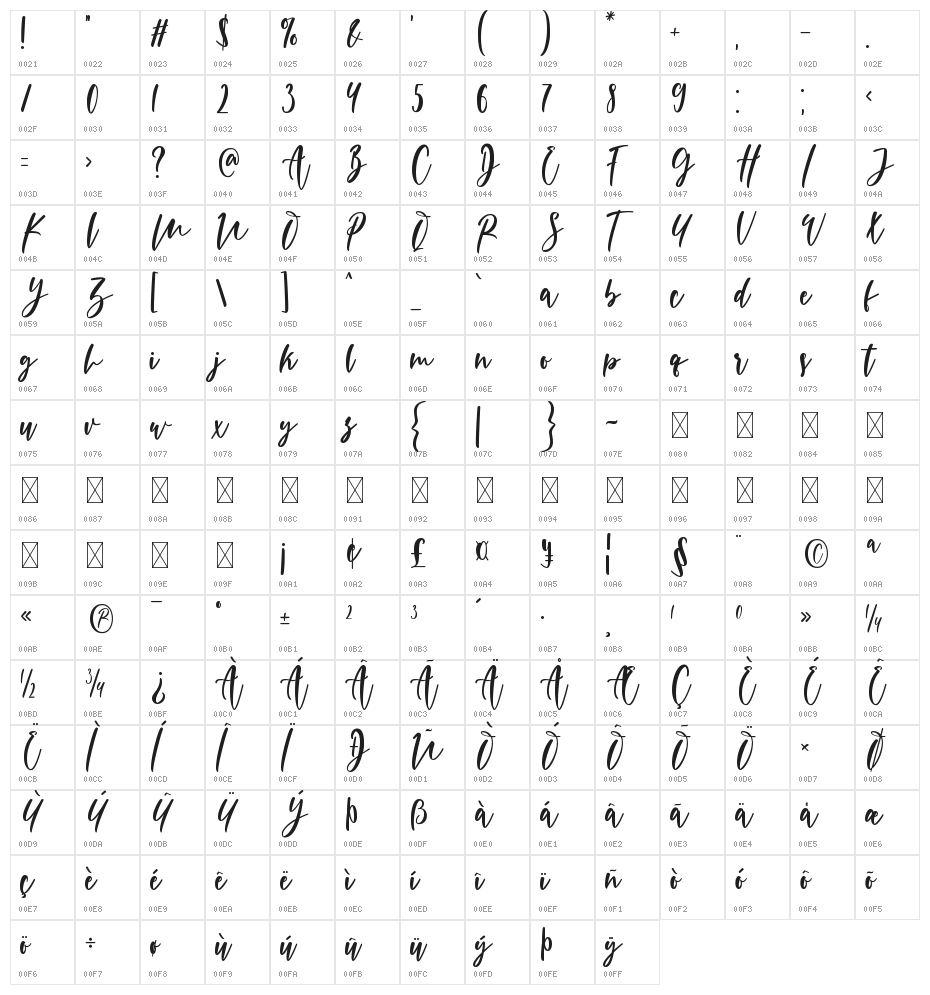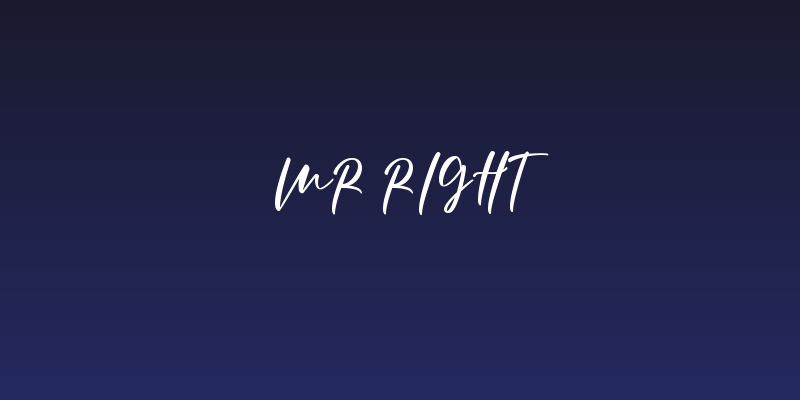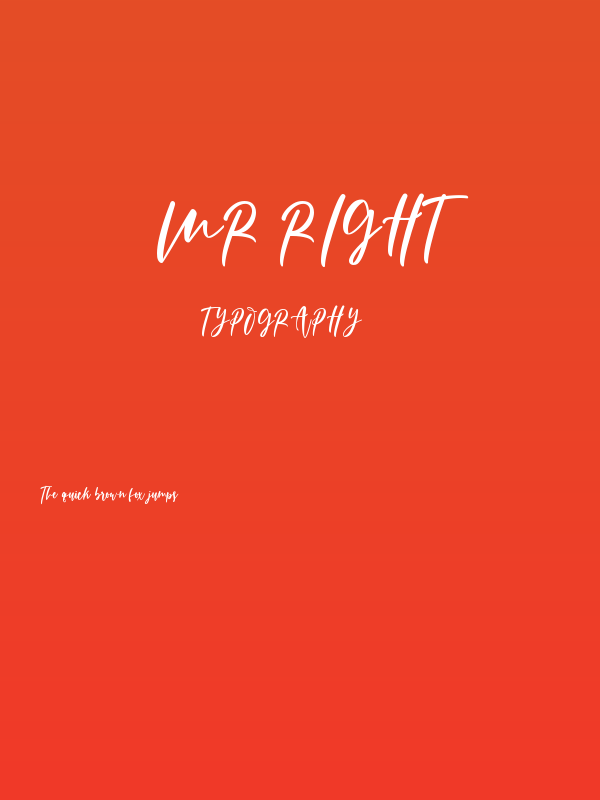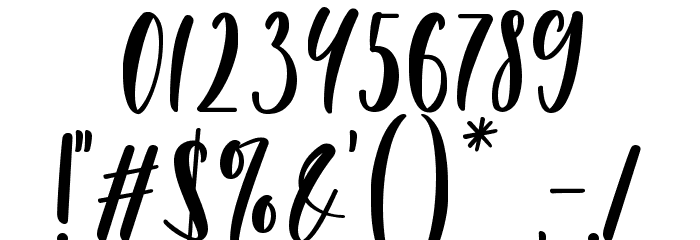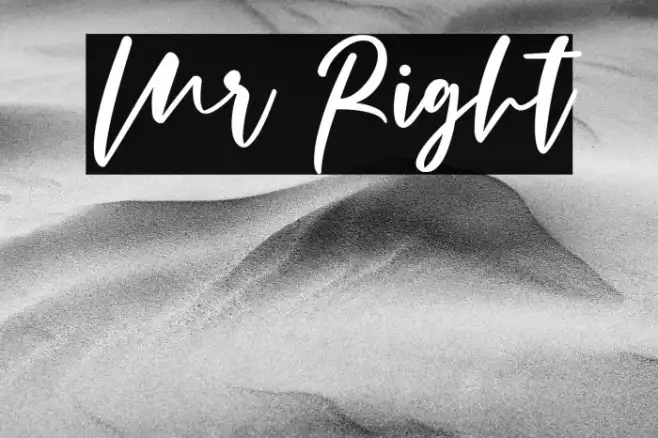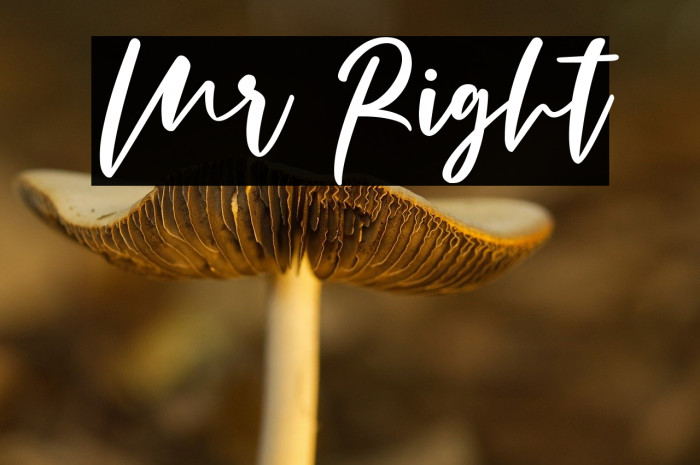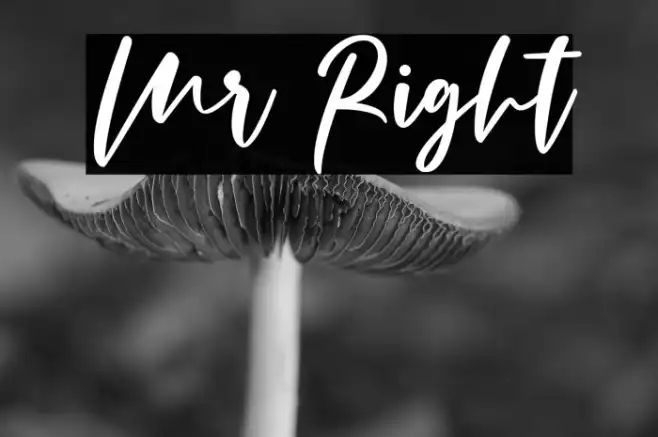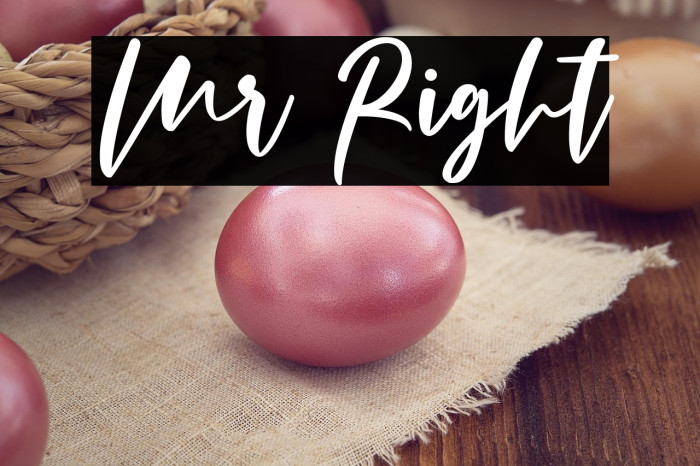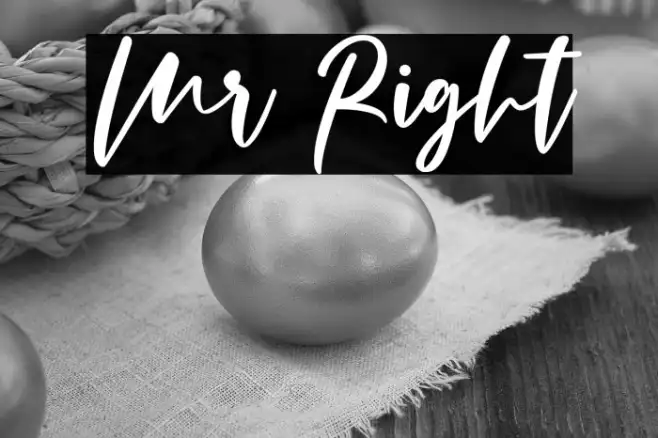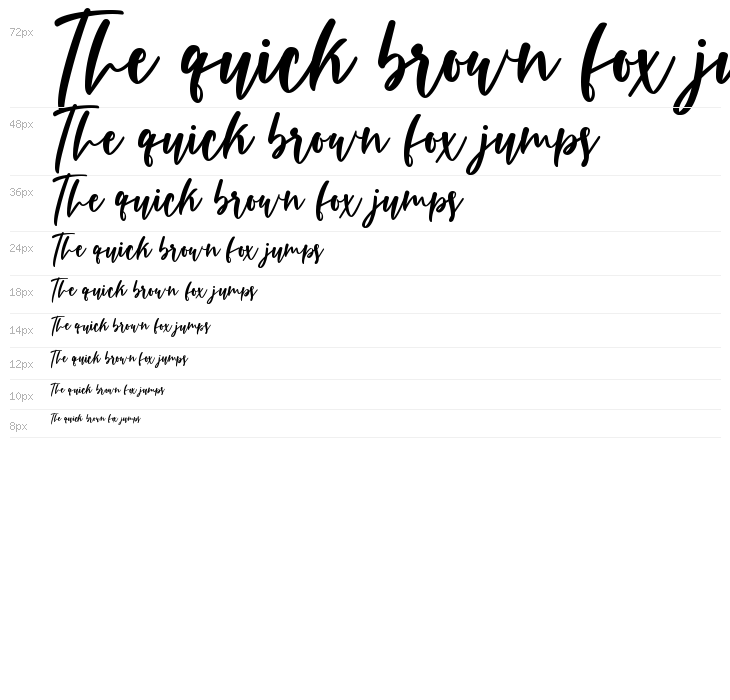
Mr Right Font
Mr Right Description
This font exudes a lively and energetic script style, characterized by its fluid and connected letterforms. The uppercase letters are bold and expressive, with a slight slant that adds a dynamic feel. The lowercase letters maintain a consistent flow, enhancing readability while retaining a playful elegance. Numbers and special characters are crafted with the same attention to detail, ensuring a cohesive look across all elements. The font's brush-like strokes give it a handcrafted appearance, making it ideal for projects that require a personal touch.